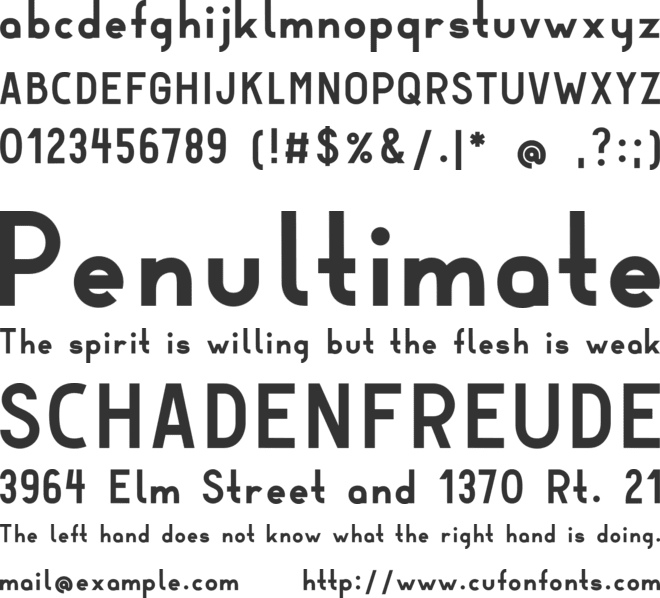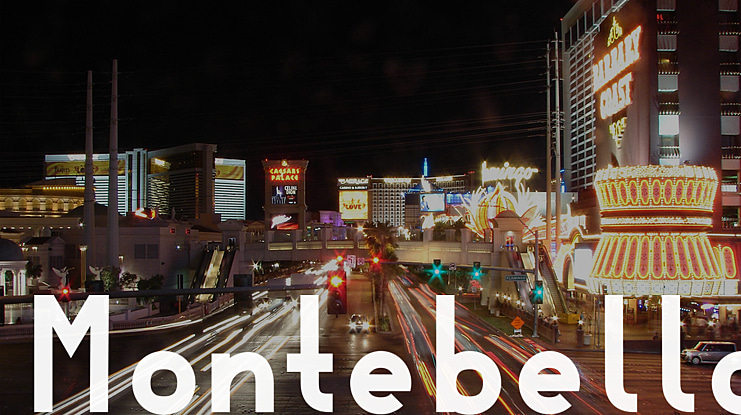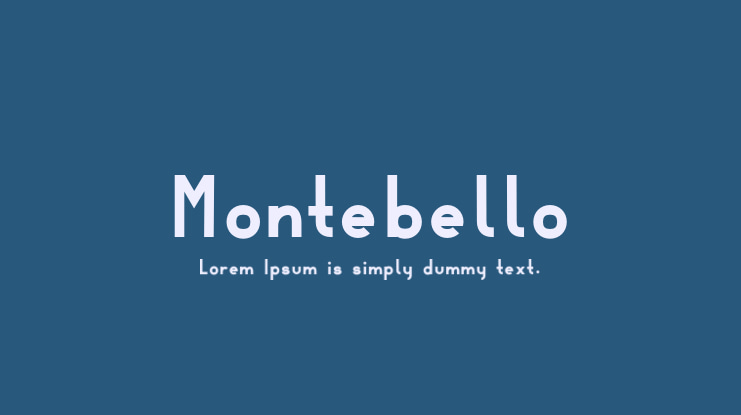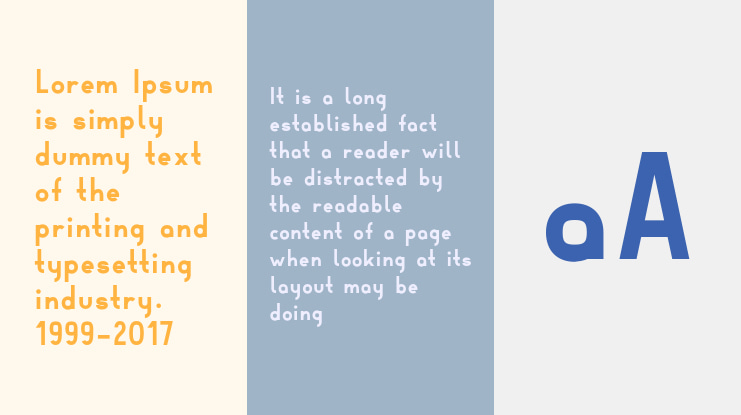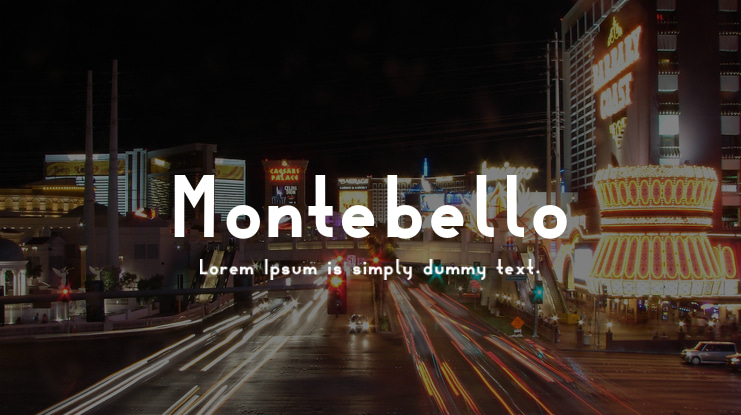
Montebello Font Family
Thor Christopher Arisland
Montebello is a tall and slim variable font.
The regular versions come in two weights, light and bold, while the variable version offers everything in between.